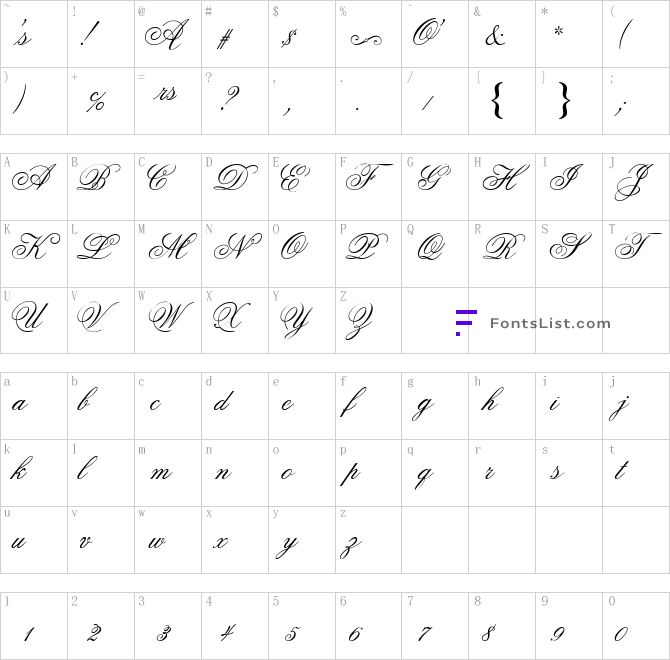
- Font Name:At Flemish Script II
At-Flemish-Script-II.ttf is a very beautiful artistic font, At-Flemish-Script-II.ttf is widely used in the design and printing of various books and pictures,At-Flemish-Script-II.ttf has a strong visual impact,At-Flemish-Script-II.ttf is a commonly used font in newspapers, magazines and books, and is used in posters, e-commerce Poster design, store design, logo design, font design and other fields.At-Flemish-Script-II.